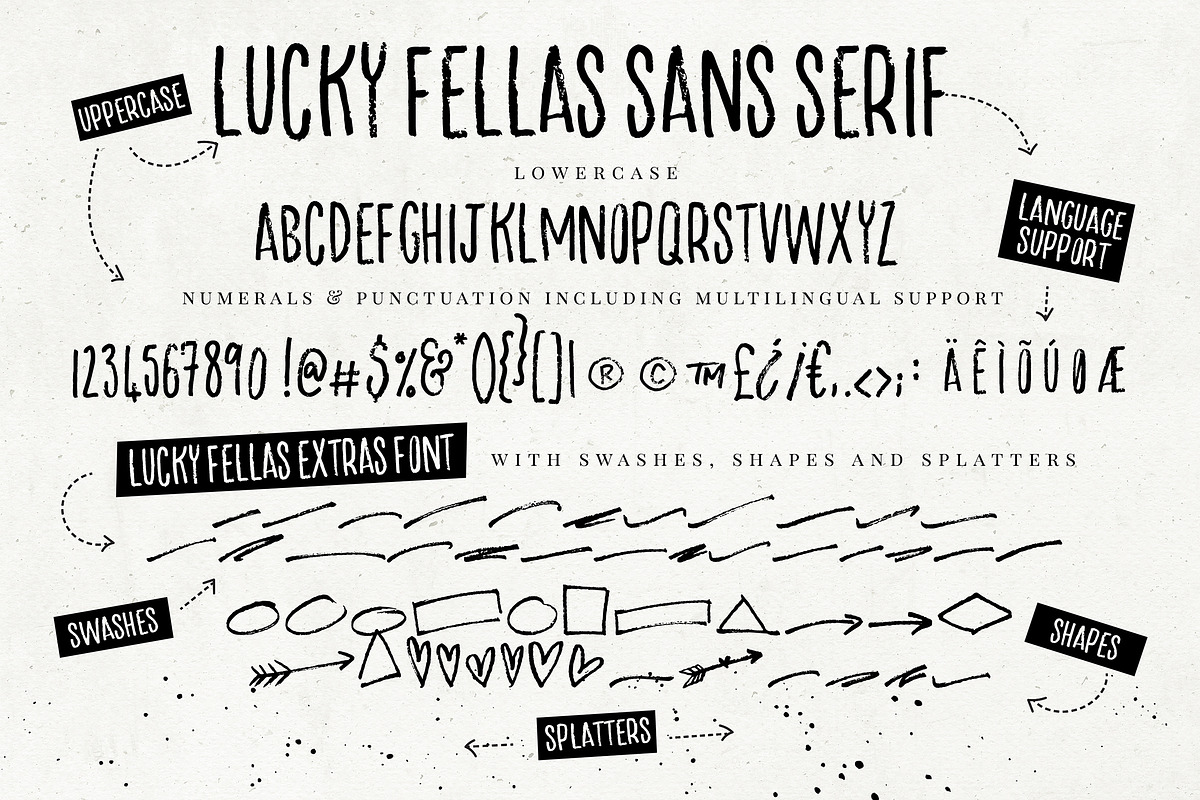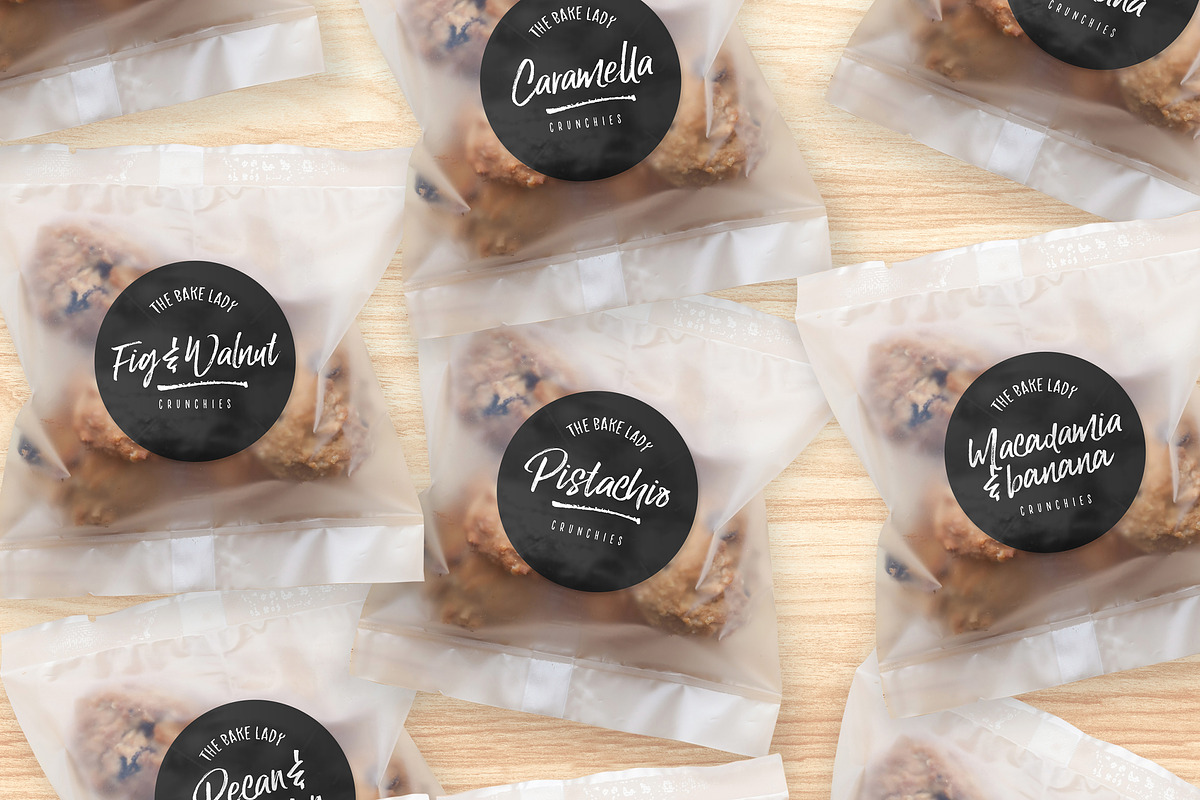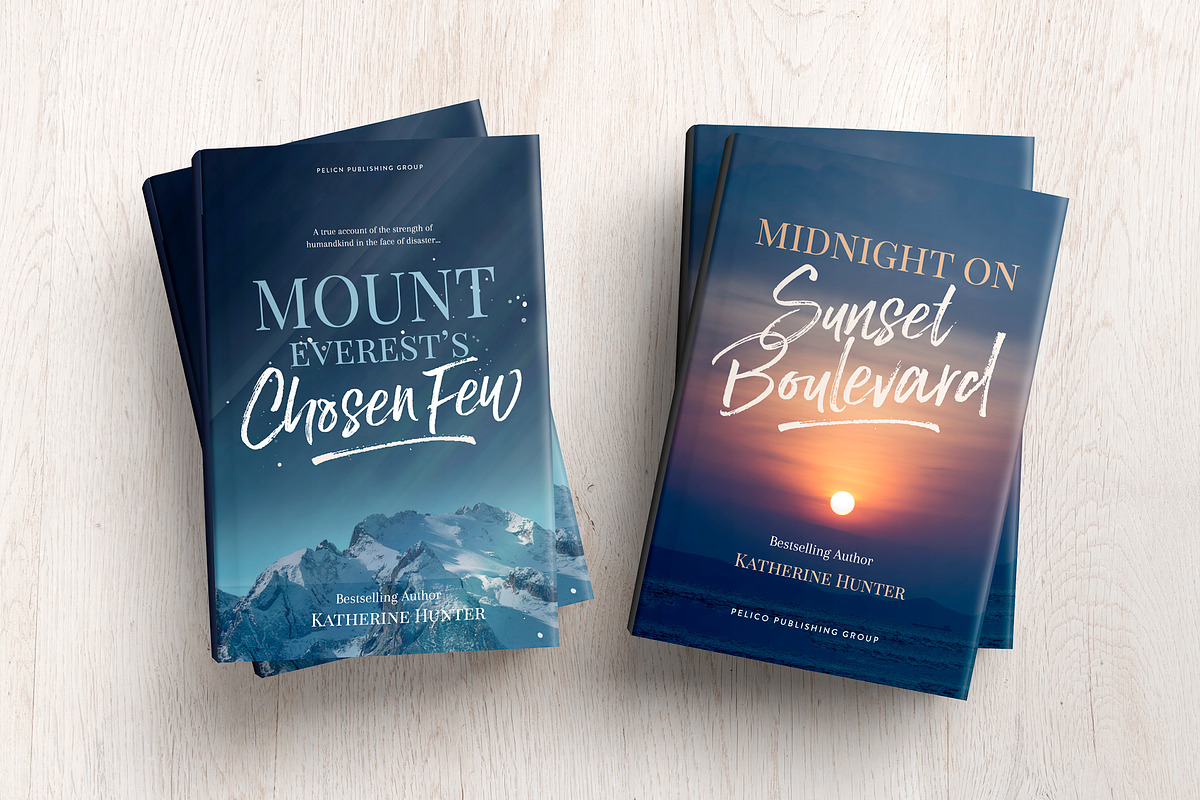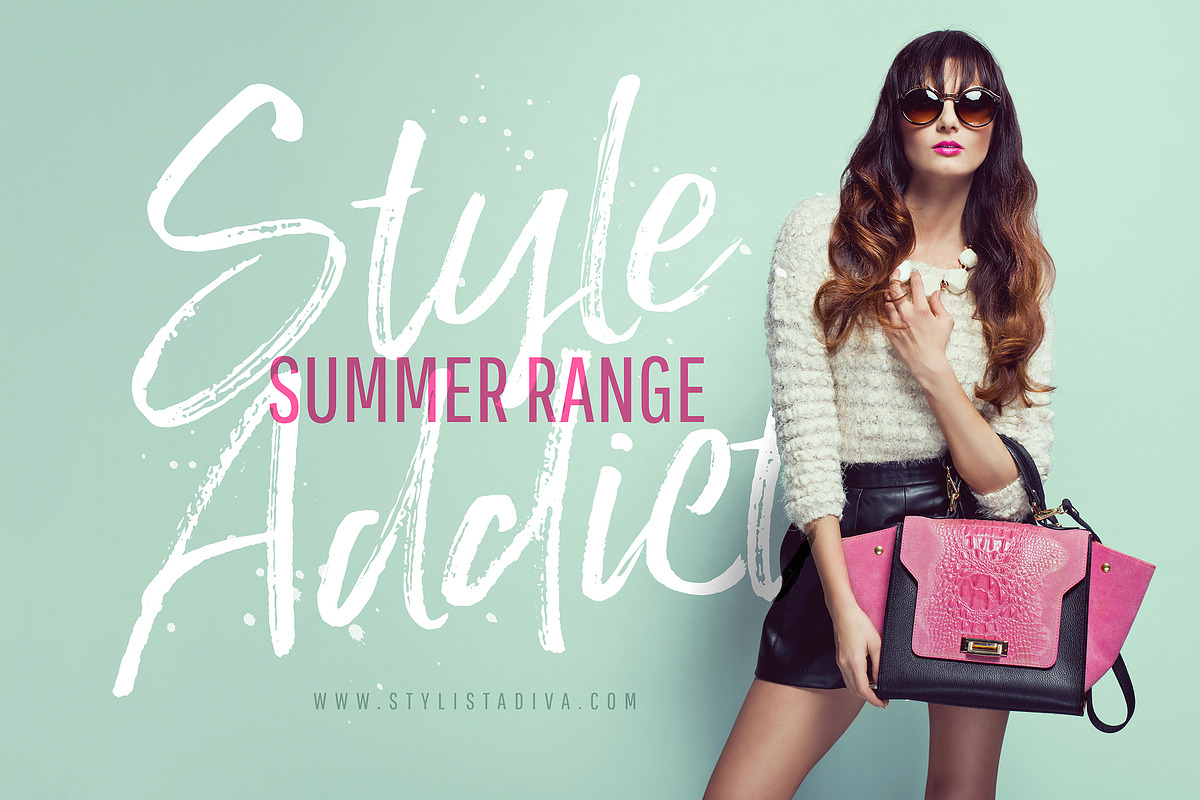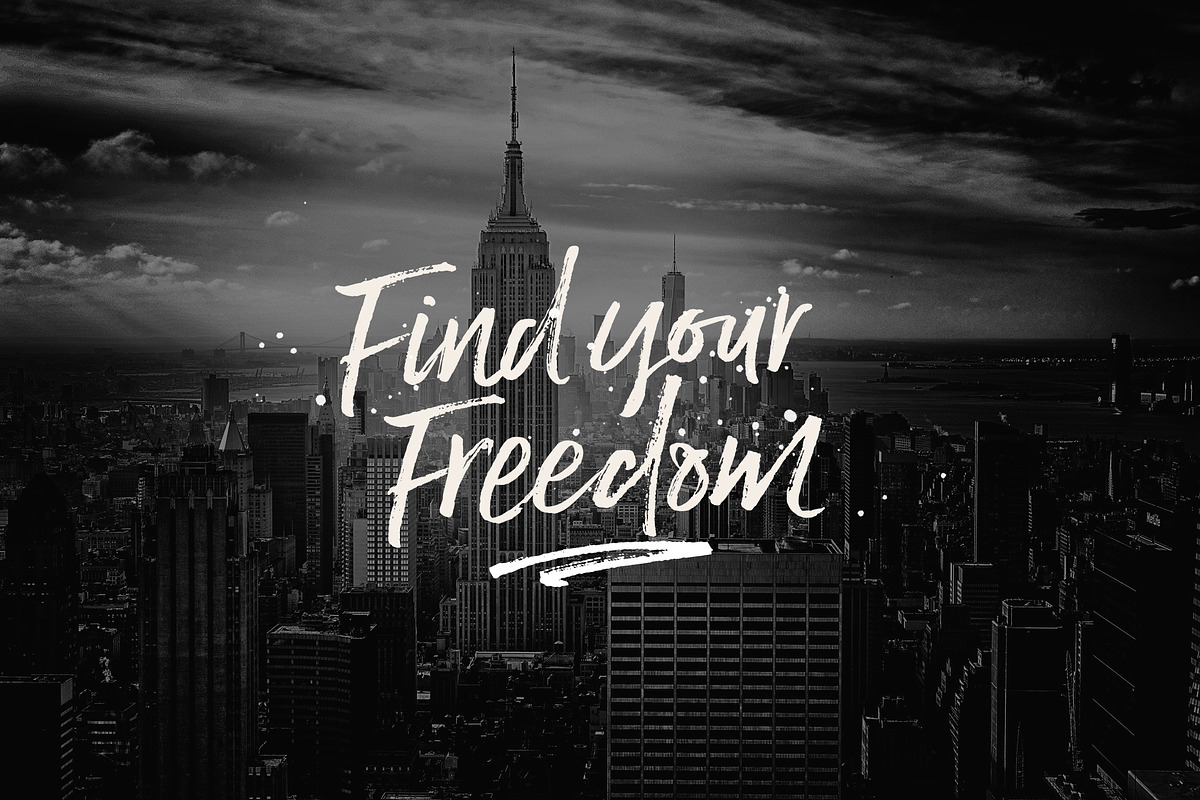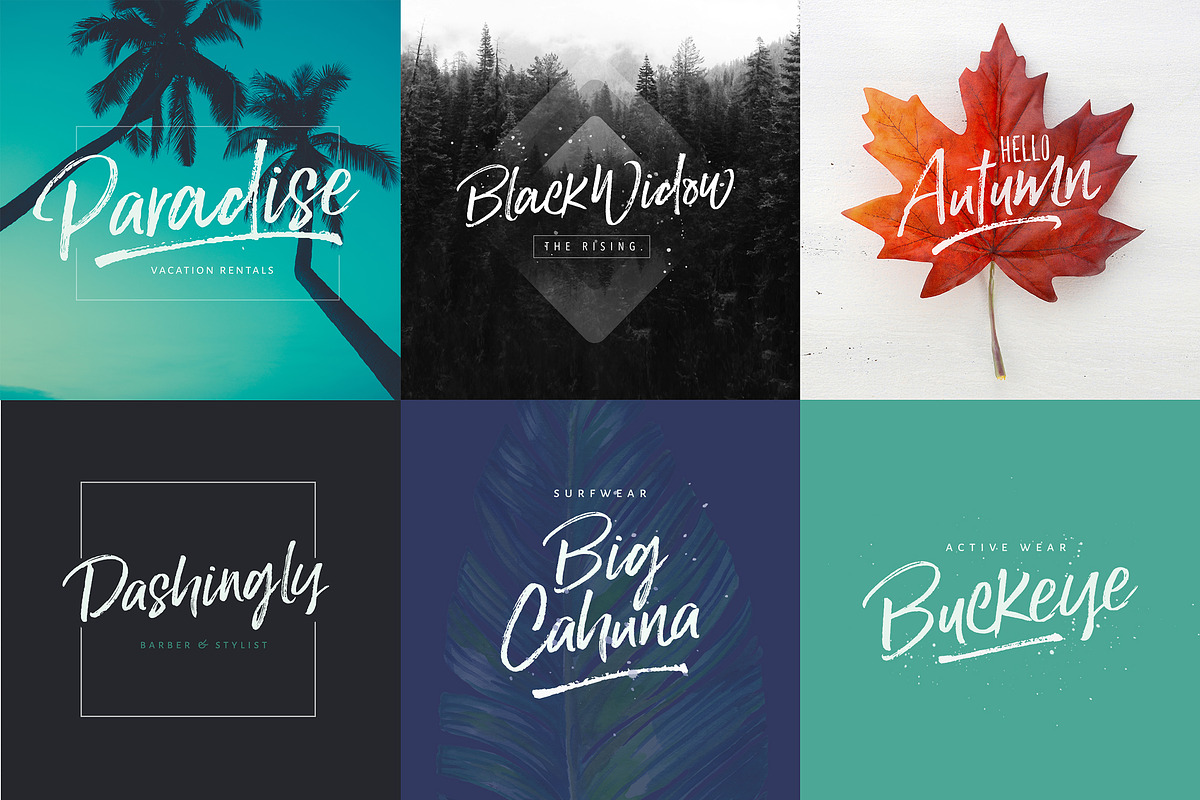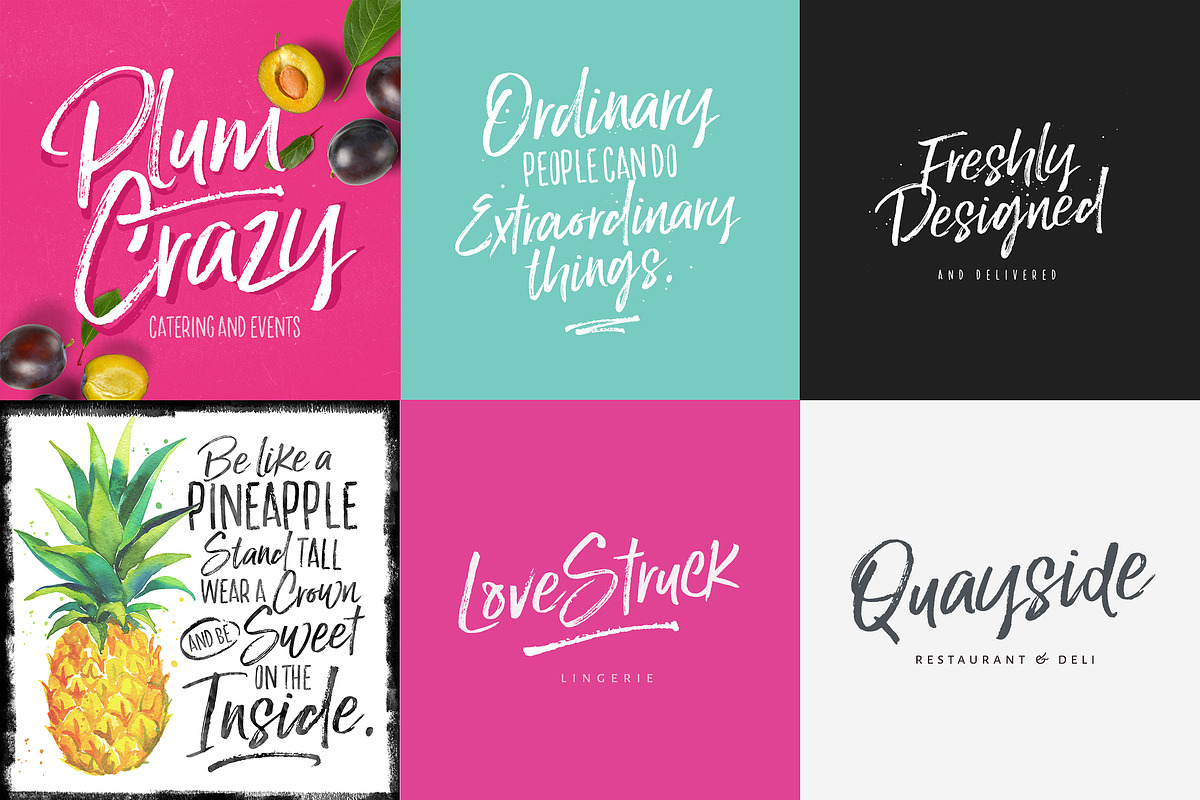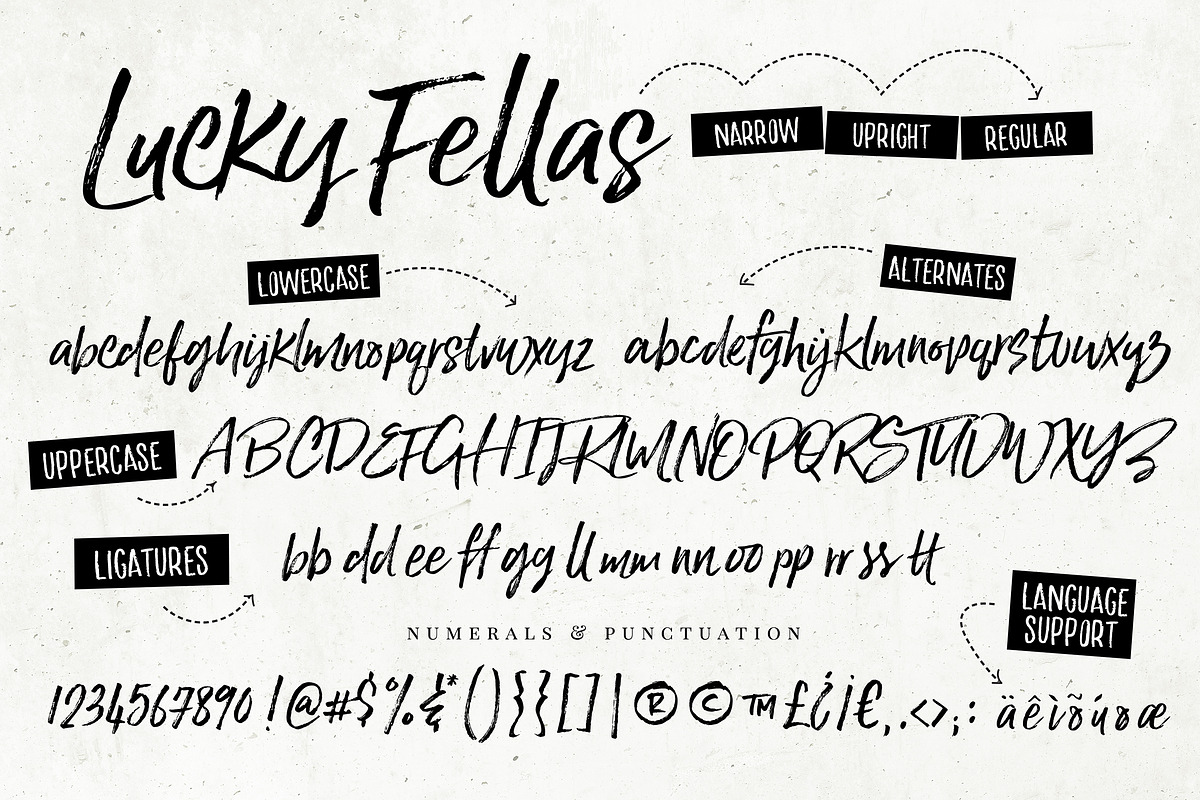
Lucky Fellas Brush Script + Extras
Introducing Lucky Fellas! - A rough-and-ready hand-brushed script, with edgy lines and awesome character!
Lucky Fellas is perfect for making a bold statement in professional branding, advertising, poster design, book covers, magazines, greeting cards, merchandise, fashion campaigns, newsletters, album covers, and quote designs and more.
Lucky Fellas Script comes with a handy set of lowercase alternate letters , and a comprehensive set of ligatures( double letters - they look more natural than two letters exactly the same written together) for folks with opentype capable software (e.g. Photoshop/Illustrator).
If you don't have any opentype specific software, you can STILL use Lucky Fellas as is with its standard lowercase letters, and still produce gob-smacking designs. Even in Word :)
EXTRAS : Lucky Fellas comes with some handy extras - a complimentary textured titling sans serif font, and some super sexy swashes and splatters font to add some finishing touches to your designs.
The Extras dingbat font has a large selection of brushed swashes, shapes, and splatters. To access the swashes use a-z, the shapes A-Z, and the splatters 0-9. ( No special software needed)
Lucky Fellas comes with multilingual support and supports the following langages : Danish, Dutch, English, Estonian, Faroese, Filipino, Finnish, French, Galician, German, Icelandic, Indonesian, Irish, Italian, Norwegian Bokmål, Norwegian Nynorsk, Portuguese, Spanish, Swedish, Swiss German.